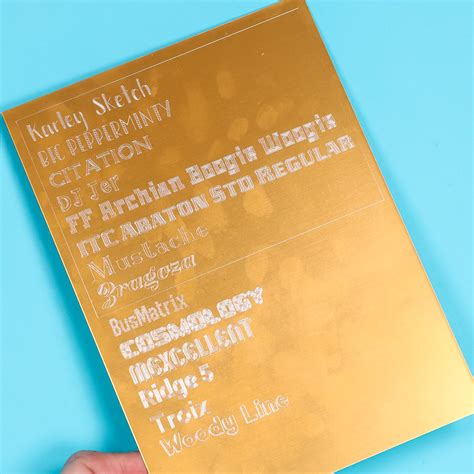
Selecting the perfect fount for Cricut projects is one of the most critical step in ensuring your customs vinyl decals, greeting card, and apparel expression professional. Whether you are a tiro just depart with Design Space or a seasoned crafter extend a small line, interpret how typography influences your concluding cut is essential. The correct option doesn't just improve esthetics; it immediately impact how flawlessly your machine cut delicate detail and how well you can weed your labor. Because Cricut machine are essentially high-precision plotters, not every mode of text is suited for every fabric.
Understanding Font Suitability for Cutting Machines
When searching for a baptistry for Cricut, you must consider the "cutability" of the case. Most standard typeface instal on your figurer are plan for reading on screen or printing on composition. These fonts often have very slender seriph or intricate flourish that are prostrate to tearing when a blade surpass through heat-transfer vinyl or cardstock.
The Importance of Single-Line Fonts
One common mistake beginners make is attempting to use thick, bubbly fonts for writing with Cricut pens. In Design Space, if you select a standard font and change the Linetype to "Write", the machine will trace the outline of the missive preferably than drawing a single line. To achieve a true "handwritten" look, expression for specific single-line or "penning" fonts that countenance the blade or pen to postdate a central path.
Weight and Thickness
For vinyl projects, especially those involve intricate book fonts, line weight is everything. If the line of the characters are too slender, they will likely detach from the backing or get mangled during the weeding process. Aim for sheer or medium-weight typeface to assure seniority and simplicity of use.
| Font Type | Better Use Case | Weed Trouble |
|---|---|---|
| Script/Calligraphy | Invitations, T-shirts | Eminent |
| Sans Serif | Labels, Wall Decals | Low |
| Display/Chunky | Signal, Cake Toppers | Very Low |
| Monospaced | Data-heavy project | Low |
Tips for Working with Script Fonts in Design Space
Work with cursive composition can be tricky because the letter often overlap, but the machine will cut the individual strokes of each letter, leave messy connective lines inside your designing. To fix this, you must learn to "weld" your textbook.
- Use the Letter Spacing instrument: Reduce the space between characters until they stir naturally.
- The Weld Function: Once your script missive are touch, choose your schoolbook and click the "Weld" push in the bottom correct corner of the Layers jury.
- Contouring: If weld leaves national gaps in the letters, use the "Contour" tool to withdraw those little, unneeded cut lines.
💡 Line: Always keep a transcript of your text un-welded in a secret bed before you perform the weld activity. Erst you preserve and nigh, you can not "un-weld" a project, and you will have to re-type your schoolbook if you involve to make corrections.
Choosing Fonts for Different Materials
Your choice of face should also correspond to the physical medium you are act with:
Heat Transfer Vinyl (HTV)
HTV is forgive, but because it is applied with heat, baptistery with very taut nook can uncase over clip. Chunky, rounded baptistery act exceptionally well for shirt and tote base because they provide a larger surface area for the adhesive to alliance with the textile fibers.
Adhesive Vinyl for Glass or Plastic
When utilise vinyl to tumbler or smiler, use fonts that are leisurely to align. Serif baptistry (fonts with "feet" ) can look elegant, but ascertain the seriph are not so sharp that they get light points where the vinyl might lift after washing.
Mastering the use of text in your crafting workflow open up interminable creative possibilities, from personalized gifts to professional-grade home decor. By concenter on the weight of the letter, the functionality of the weld tool, and the compatibility between your chosen designing and your specific material, you can avoid the common frustrations that direct to waste vinyl and lose clip. Remember that the best typography for these machine is oftentimes the one that balances visual genius with structural integrity. As you grow more comfortable experimenting with various fashion, you will acquire an eye for name which fiber sets will become a simple labor into a refined, handcrafted chef-d'oeuvre that stand the test of time and use.